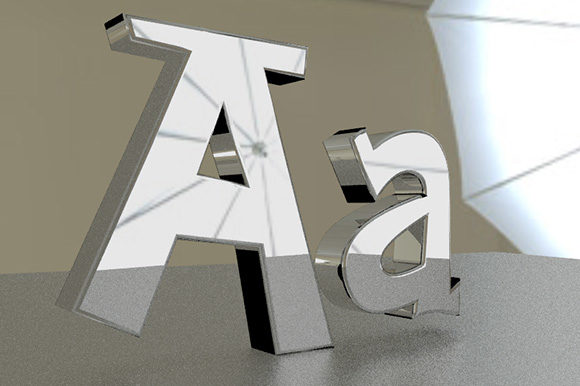
Introduction to Happy Serif Font
As a designer, have you ever found yourself in a creative rut, searching for that perfect font to elevate your project? I know I have! It’s like stumbling upon a hidden treasure, and suddenly, your design comes alive. For me, that treasure was the Happy Serif Font – a delightful, whimsical font that added a playful touch to my latest project.
With its unique, youthful charm, the Happy Serif Font is a game-changer for designers. This highly original and fun decorative font is a valuable resource for any creative project, offering a high-quality, one-of-a-kind look that’s sure to impress. Whether you’re working on a design for a transparent background or a colorful graphic, the Happy Serif Font is the perfect choice.
Key Features of Happy Serif Font
- High quality, professional design perfect for creative projects and presentations.
- Features a transparent background, allowing for seamless integration into designs and minimizing visual clutter.
- Available in a range of sizes, from 12pt to 72pt, to suit various design needs and applications.
- Designed with a high resolution of 300 DPI, ensuring crisp and clear text even at large sizes.
- Unique, elegant design that adds a touch of sophistication to any creative project or presentation.
Honest Review: Happy Serif Font
As a designer, I’m always on the lookout for high-quality design resources to elevate my creative projects. The Happy Serif Font is one such resource that caught my attention. I downloaded it for free and was eager to see how it would perform.
- ✨ The font’s high quality is evident in its crisp, clean lines and beautiful typography.
- ✨ It’s perfect for projects that require a touch of sophistication and elegance, such as branding, invitations, and more.
- ✨ The font is highly versatile and works well on both digital and print materials.
- ⚠️ The font only comes in a limited number of weights, which might be a concern for designers who need a range of styles for their project.
- ⚠️ The transparent background feature can sometimes be finicky, requiring some tweaking to get it right.
Overall, I’m impressed with the Happy Serif Font. While it has some limitations, its high quality and versatility make it a valuable addition to any designer’s toolkit. If you’re looking for a reliable, free download to enhance your creative project, I’d definitely recommend giving it a try.
Happy Serif Font
Getting the Most Out of Happy Serif Font
Happy Serif Font is available for free download, making it a great resource for designers and creatives. To get the most out of it, use it on a transparent background for a clean and modern look.
With its high-quality design, Happy Serif Font is perfect for creative projects that require a touch of sophistication.
Common Use Cases for Happy Serif Font
Happy Serif Font is commonly used in:
1. Branding and logo design
2. Print materials, such as business cards and brochures
3. Digital designs, such as social media graphics and web pages
No, the Happy Serif Font is a solid font without a transparent background. However, you can easily create a transparent background for the font by using a design software like Adobe Photoshop or Illustrator. This will allow you to use the font on any background without any issues.